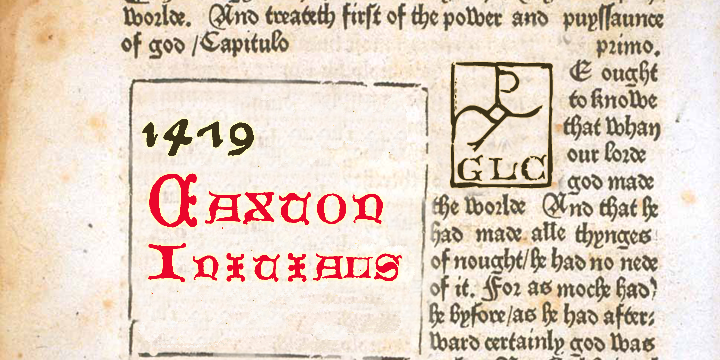
1479 Caxton Initials Font is perfect for medieval manuscript reproductions, illuminated text projects, historical book publishing, Renaissance festival materials, classical literature editions, monastery publications, academic medieval studies, heritage printing workshops, ancient scripture presentations, and any projects that need authentic typography with medieval illumination and historic printing press character.
What makes 1479 Caxton Initials Font exciting is its authentic recreation of William Caxton's pioneering printing work that brought the art of moveable type to England in the 15th century with decorative initials that capture the majesty of medieval illuminated manuscripts. This historically significant typeface features ornate characteristics with Renaissance craftsmanship that evokes hand-lettered books, monastery scriptoriums, and the revolutionary moment when printing technology transformed human knowledge from handwritten treasures to mass-produced literature. The font's medieval character makes it perfect for scholars and publishers seeking to honor the noble tradition of illuminated texts and early printing history.
1479 Caxton Initials Font family includes medieval style variations featuring ornate, simple, decorated, and flourished versions. The font family also contains period-appropriate decorative elements, illuminated borders, medieval symbols, and Renaissance ornaments that enhance the historical manuscript atmosphere. Additional options include aged variants that simulate centuries of careful preservation, along with special character sets designed for different medieval moods and scholarly applications.
Illuminate knowledge with 1479 Caxton Initials Font Free Download and bring the magnificent tradition of medieval manuscript illumination to your scholarly projects with typography that bridges the ancient art of hand lettering and the revolutionary dawn of printing. This historically authentic typeface delivers medieval-quality performance across all academic applications, ensuring your message carries the dignity and scholarly authority that medieval illumination represents. Download 1479 Caxton Initials Font today and inscribe your designs in the golden tradition of illuminated manuscripts, creating scholarly connections with audiences who appreciate the profound historical significance of preserving knowledge through beautiful typography and the revolutionary impact of early printing on human civilization.